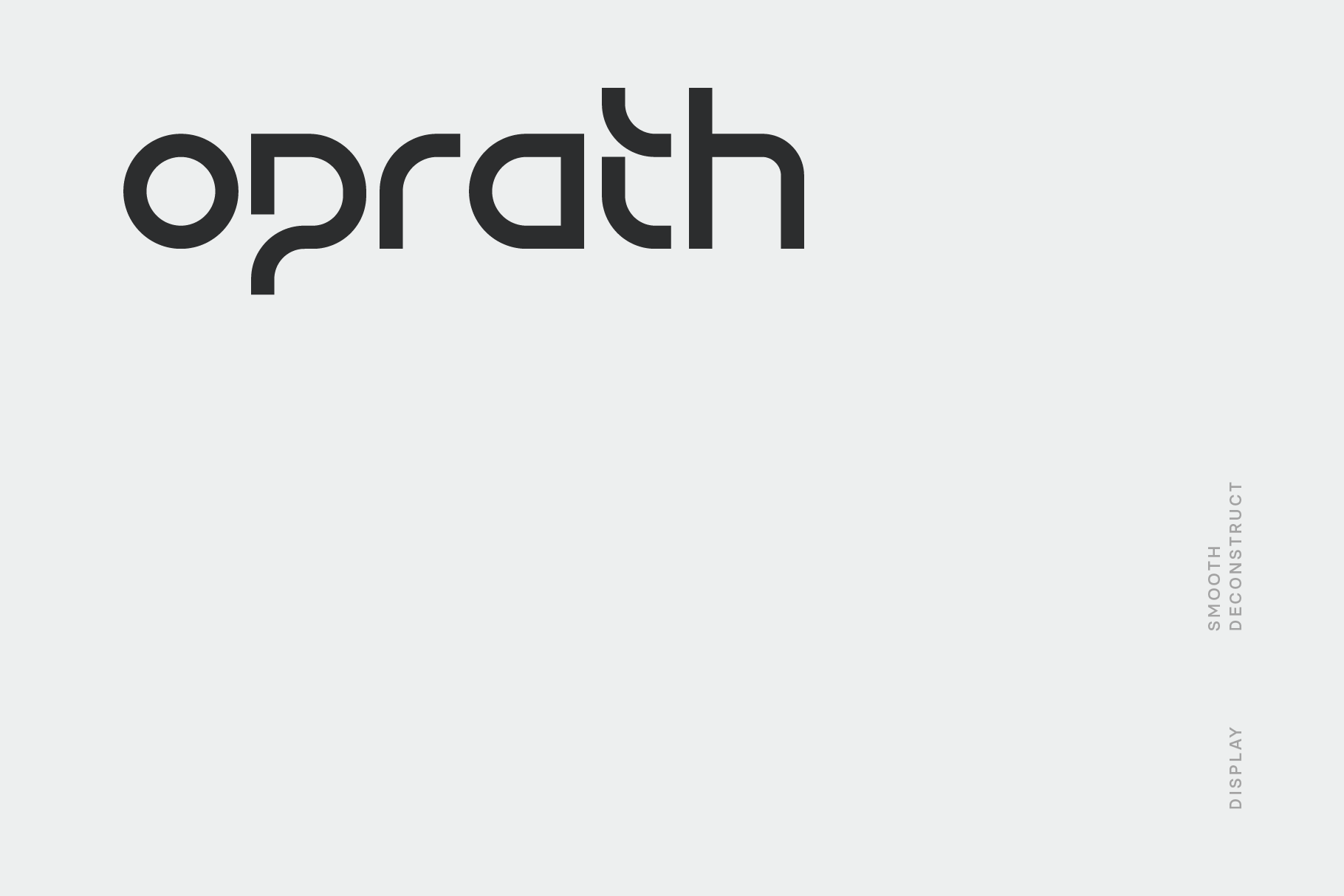
Oprath Font
Oprath is a smooth deconstruct linear sans apt for headline, editorial, branding, packaging, printed materials and typographic applications. 150+ glyphs with ligatures and fractions provided in opentype .otf and .woff format.